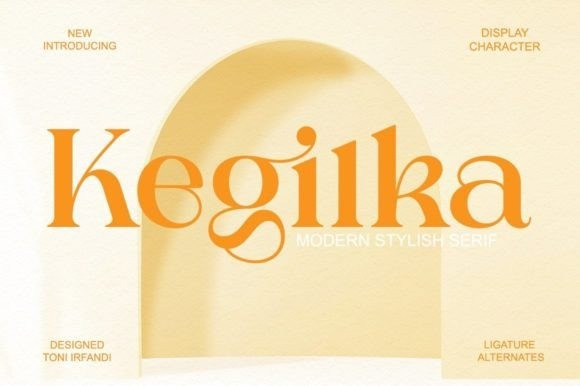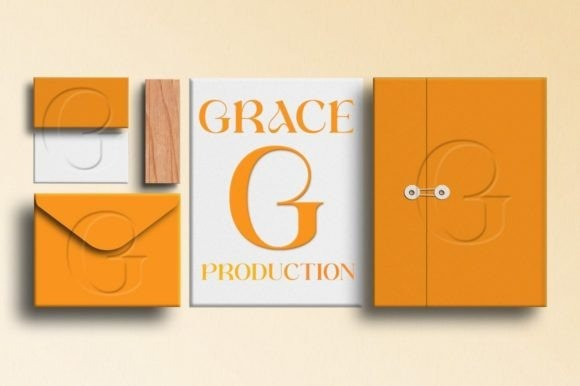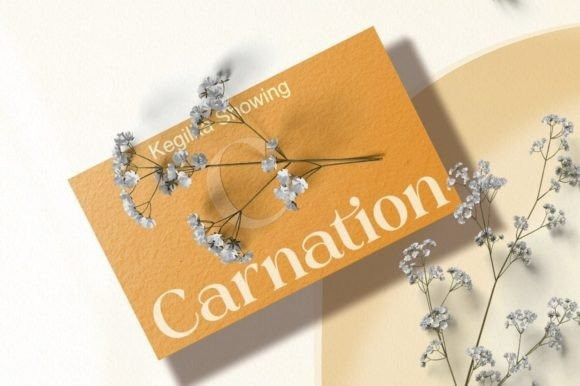
Kegilka Font
Kegilka is a very charismatic and stylish font. The intersection of its curves is so smooth and beautiful that it makes your project look neat and special.